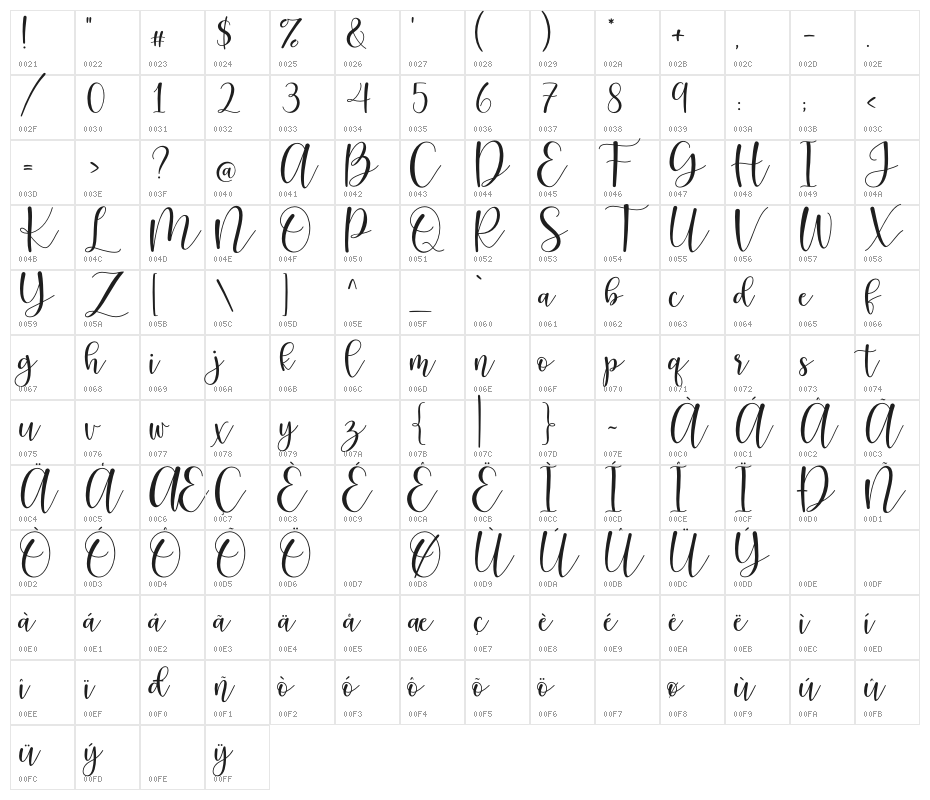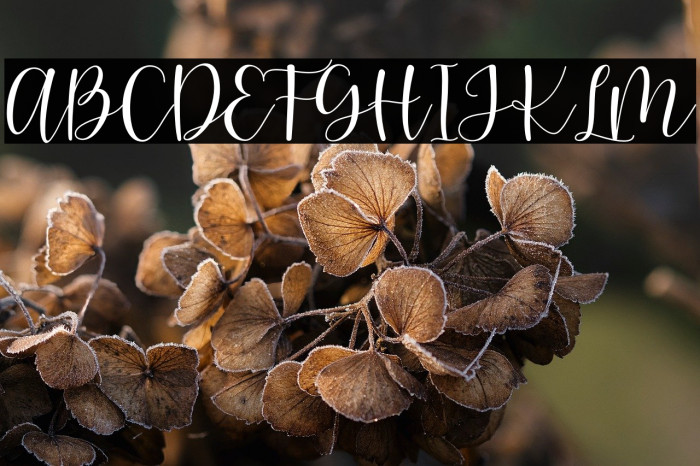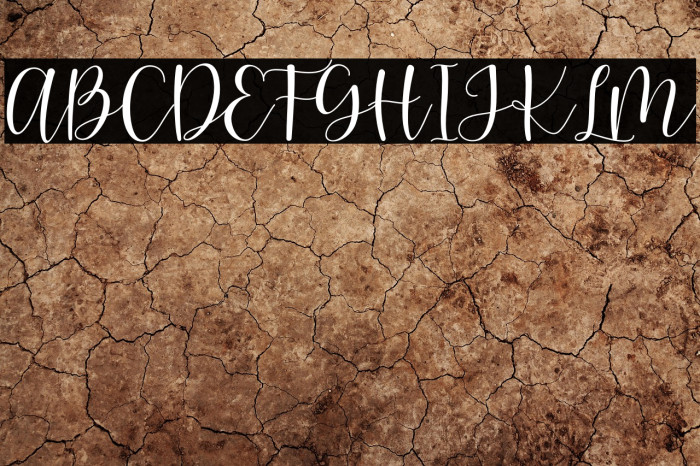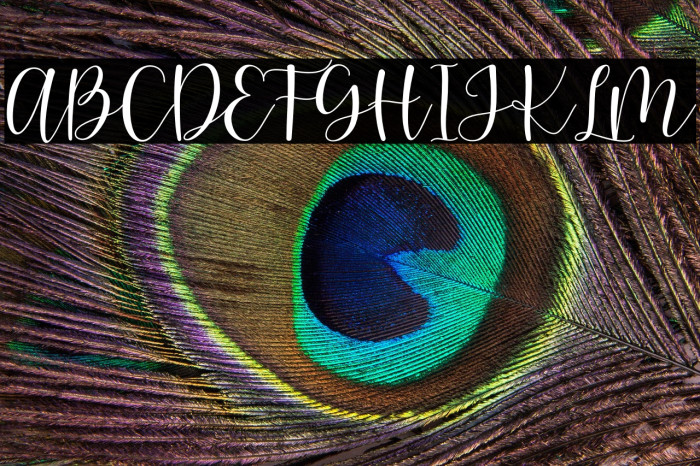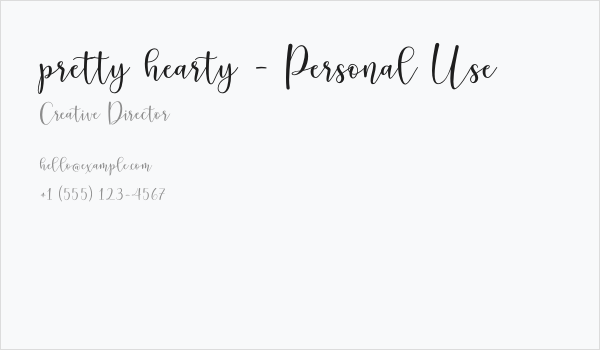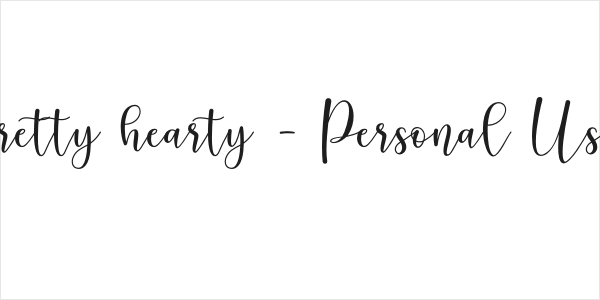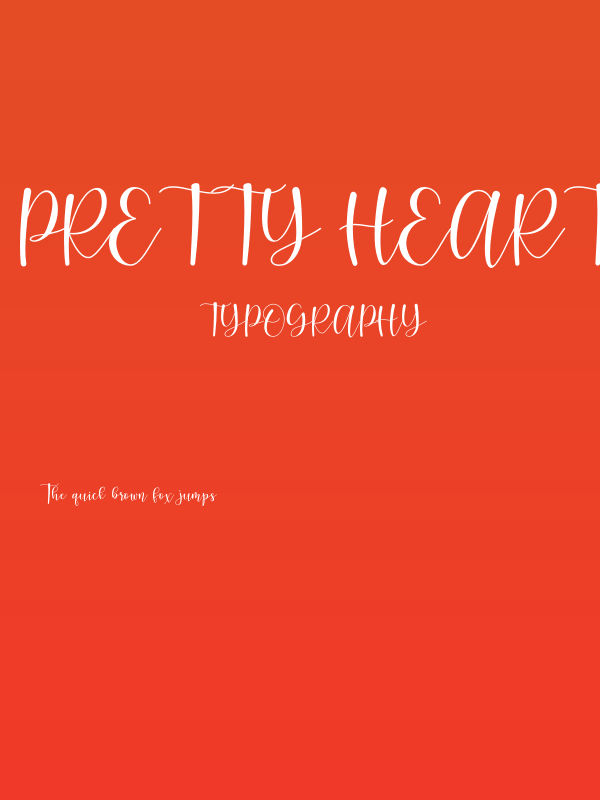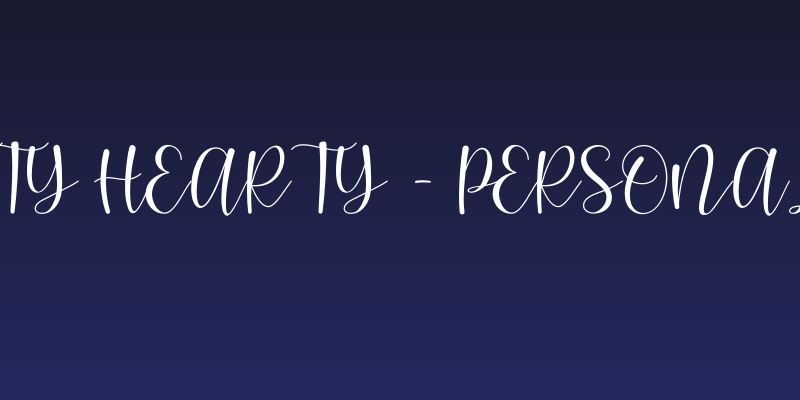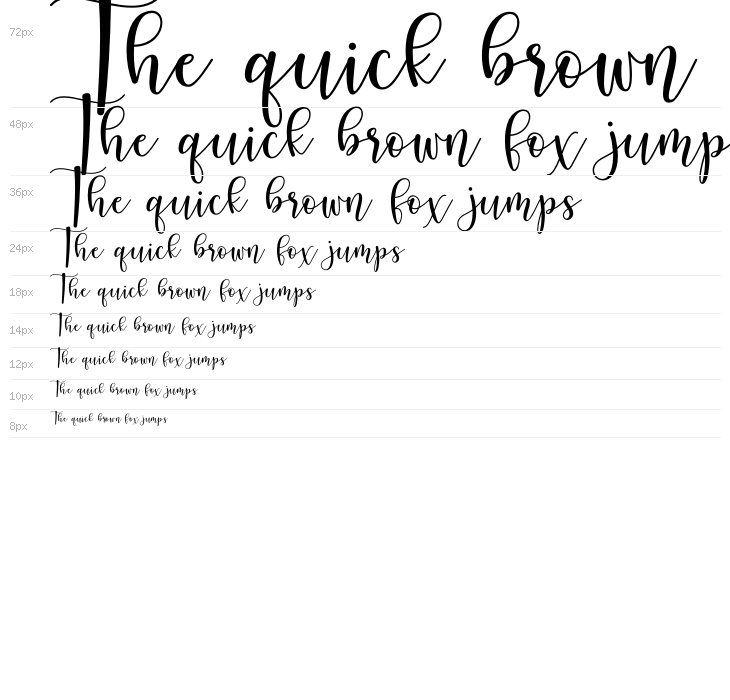
pretty hearty - Personal Use Font
pretty hearty - Personal Use Description
This font features a lively and flowing script style, characterized by its elegant and fluid strokes. The uppercase letters are gracefully elongated, while the lowercase letters maintain a consistent rhythm with smooth curves and loops. The numerals are designed with a similar flair, ensuring a cohesive look across all characters. Special characters are thoughtfully integrated, maintaining the overall aesthetic. This font exudes a sense of warmth and personality, making it ideal for projects that require a personal touch.
| Proposed Projects | Ideal for wedding invitations, greeting cards, branding, and social media graphics. |